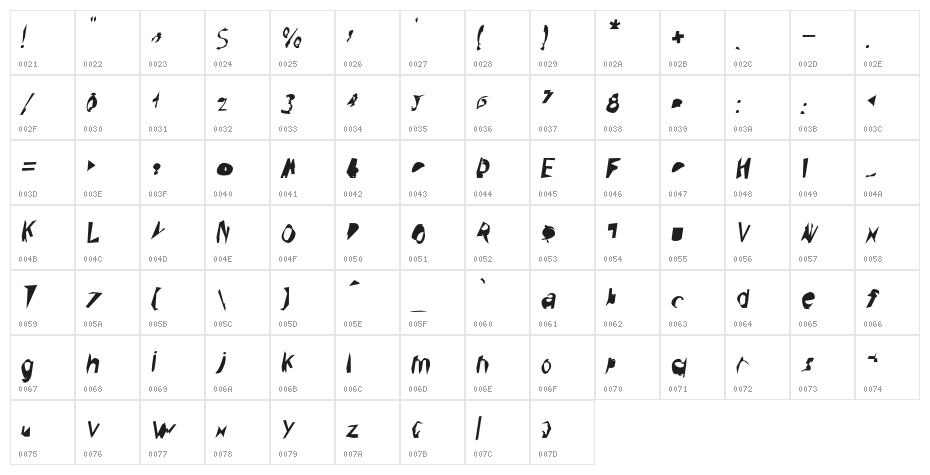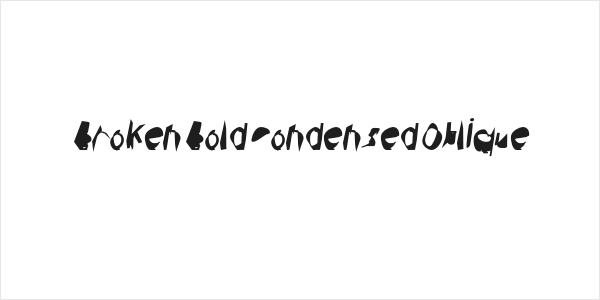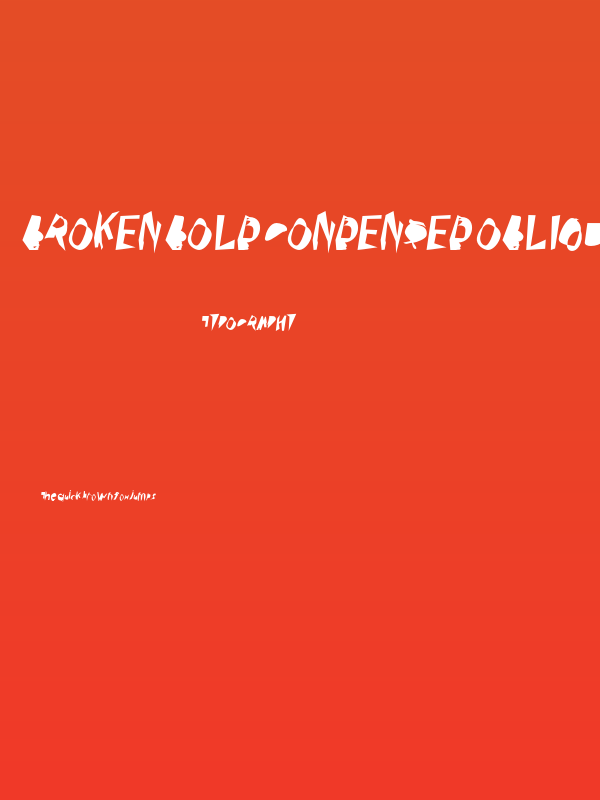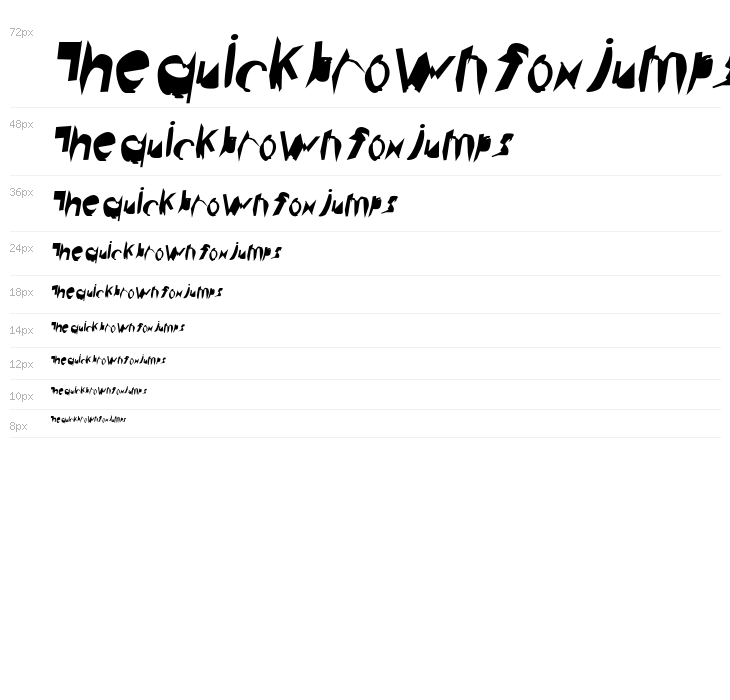
Broken Bold Condensed Oblique Font
Broken Bold Condensed Oblique Description
This font exhibits a bold and condensed style with an oblique slant, creating a dynamic and edgy appearance. The characters are fragmented and angular, giving a sense of movement and energy. The uppercase and lowercase letters maintain a consistent style, with sharp edges and irregular shapes that suggest a sense of urgency and modernity. Numbers and special characters follow the same design principles, ensuring a cohesive look across all glyphs. The overall impression is one of boldness and creativity, making it suitable for projects that require a strong visual impact.
| Proposed Projects | Ideal for album covers, posters, and branding projects that aim to stand out with a bold and modern aesthetic. |